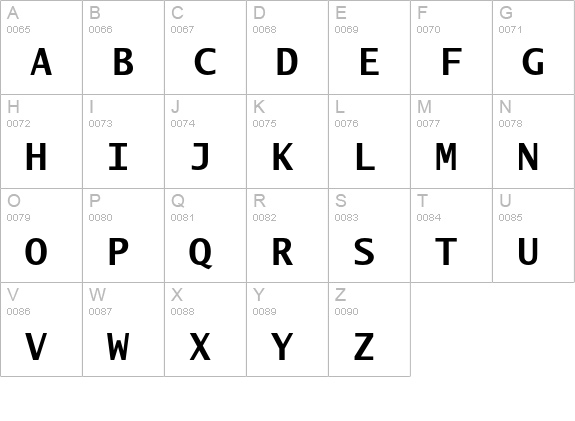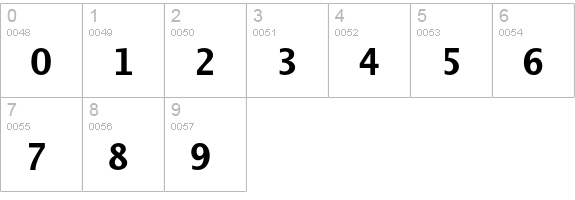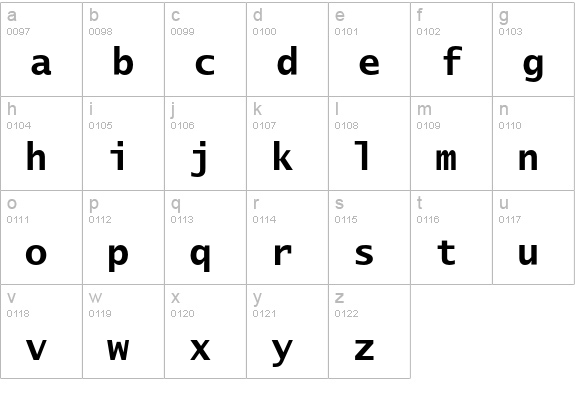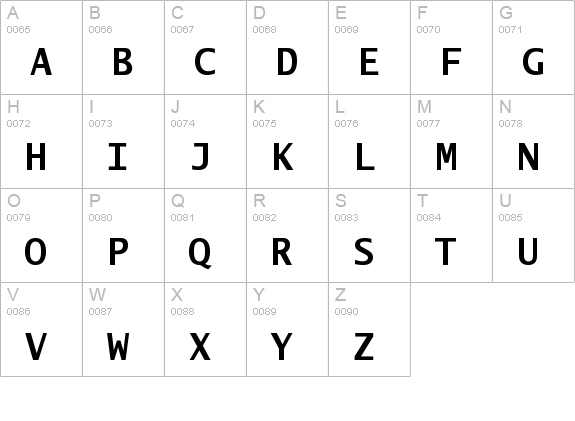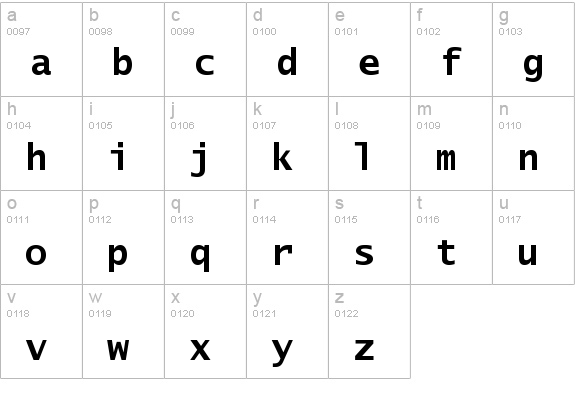
LucidaSansTypeEF-Bold Font Details
LucidaSansTypeEF-Bold is a strong, high-contrast variant in the LucidaSansTypeEF typeface family \xE2\x80\x94 well suited to headlines, attention-grabbing titles, and strong calls-to-action.
LucidaSansTypeEF-Bold is a striking and modern font that exudes confidence and style. Its bold weight makes a powerful statement, perfect for headlines, titles, and other attention-grabbing text. This font is versatile and can be used for a wide range of design projects, from posters to branding materials. The best part? LucidaSansTypeEF-Bold is available for free download at FontsMarket.com. This means you can add this eye-catching font to your collection without any cost. Don't miss out on this opportunity to enhance your designs with the bold and impactful LucidaSansTypeEF-Bold font. Download it now and take your projects to the next level!